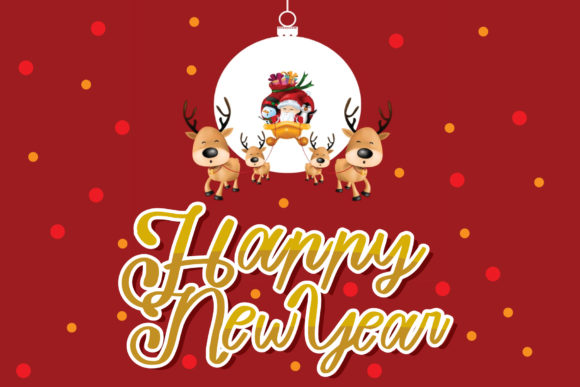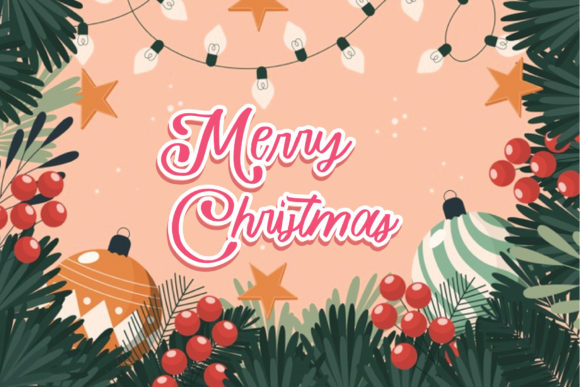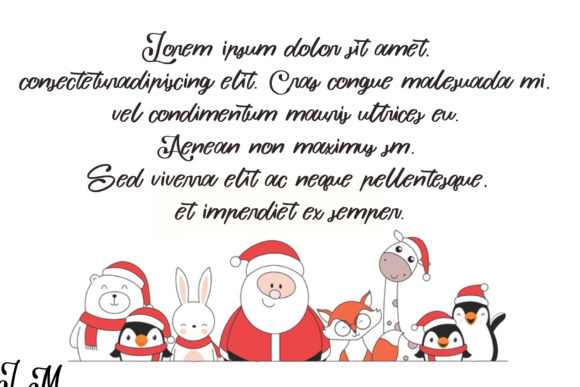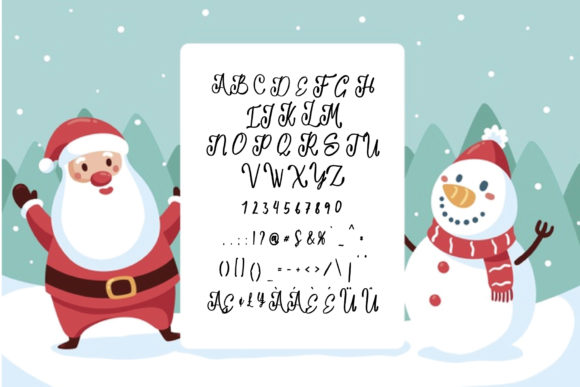
Happy New Year Font
About Happy New Year Font
Happy New Year is a fun and quirky handwritten font. Use it to make your ideas even more realistic and create spectacular designs!